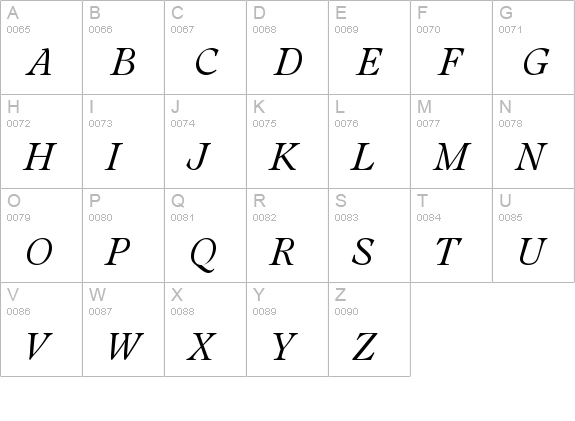
LeamingtonEF-LightItalic Font Details
LeamingtonEF-LightItalic is a beautifully crafted font that exudes elegance and sophistication. Its delicate strokes and graceful curves make it the perfect choice for projects that require a touch of sophistication and refinement. The italic style adds a touch of flair and adds a unique personality to any design. What makes LeamingtonEF-LightItalic even more appealing is that it is completely free. Yes, you read that right - this stunning font is freely available to download at FontsMarket.com. Whether you're a professional designer or a casual enthusiast, you can now elevate your projects to new heights without any cost. Using LeamingtonEF-LightItalic, you can create stunning logos, eye-catching headlines, elegant invitations, and much more. Its versatility allows it to be used in a wide range of design projects, from branding to packaging, from website designs to social media graphics. The clarity and legibility of LeamingtonEF-LightItalic make it ideal for both print and digital mediums. It ensures that your message is conveyed effortlessly, while its unique style adds a touch of sophistication and creativity. With this font, you can truly make a lasting impression. So why wait? Take advantage of this incredible opportunity and download LeamingtonEF-LightItalic for free at FontsMarket.com. Join the countless designers who have already discovered the beauty and versatility of this font. Let your creativity soar and create breathtaking designs that will leave a lasting impact.